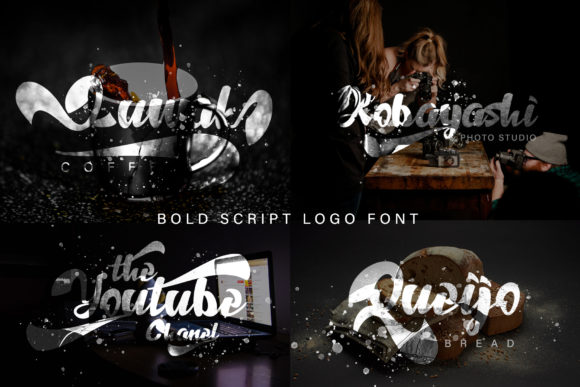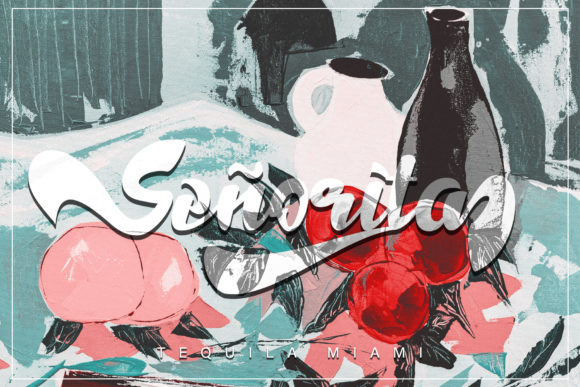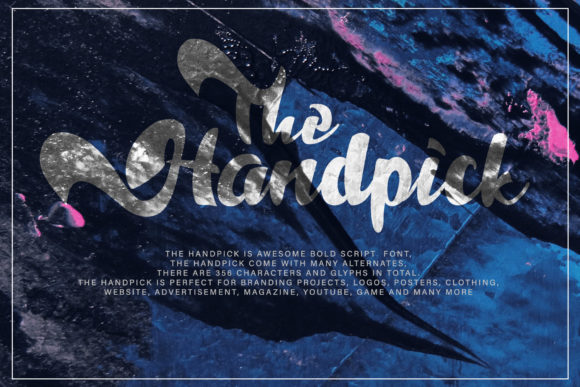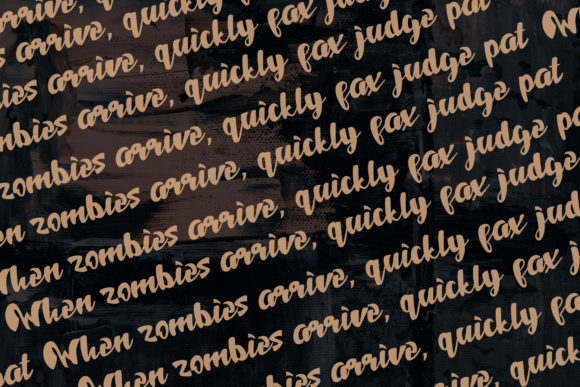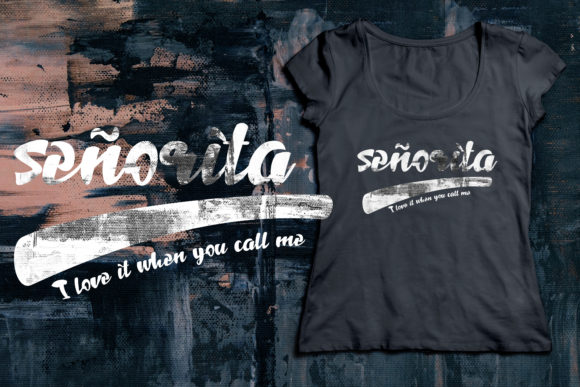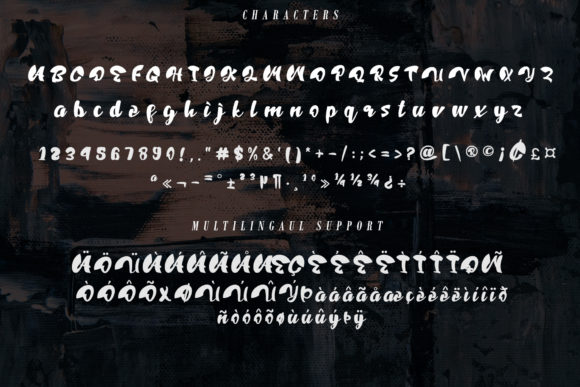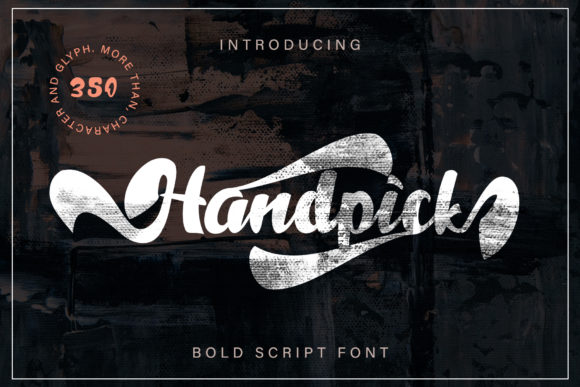
Introducing Handpick Font: The Ultimate Bold Script for Creative Projects
Are you tired of using the same old fonts for your creative projects? Look no further than Handpick Font, an awesomely bold script font that’s perfect for a variety of applications. In this article, we’ll dive into the features and benefits of Handpick Font, and explore how it can elevate your designs to the next level.
What is Handpick Font?
Handpick Font is a bold script font that’s designed to make a statement. With its unique and elegant lettering style, it’s perfect for creating eye-catching headlines, titles, and quotes. The font is carefully crafted to provide a distinctive look that’s both modern and sophisticated.
Key Features of Handpick Font
- Bold and Elegant: Handpick Font is a bold script font that’s designed to grab attention. Its elegant lettering style makes it perfect for creating sophisticated designs.
- Unique Lettering Style: The font features a unique lettering style that’s both modern and stylish. Each letter is carefully crafted to provide a distinctive look that’s sure to stand out.
- High-Quality Design: Handpick Font is designed with high-quality graphics, ensuring that it looks great in any size or resolution.
- Easy to Read: Despite its bold style, Handpick Font is easy to read, making it perfect for use in a variety of applications, from headlines to body text.
Uses for Handpick Font
Handpick Font is a versatile font that can be used in a variety of creative projects. Here are some ideas to get you started:
- Branding and Logo Design: Use Handpick Font to create a bold and memorable logo for your brand.
- Social Media Graphics: Create eye-catching social media graphics, such as Facebook posts, Instagram stories, and Twitter headers, using Handpick Font.
- Flyers and Brochures: Add a touch of elegance to your flyers and brochures with Handpick Font.
- Invitations and Cards: Use Handpick Font to create beautiful invitations and cards for special occasions.
- Web Design: Add a bold and stylish touch to your website with Handpick Font.
Benefits of Using Handpick Font
There are many benefits to using Handpick Font in your creative projects. Here are a few:
- Stand Out from the Crowd: With its unique and bold style, Handpick Font is sure to make your designs stand out from the crowd.
- Professional Look: Handpick Font gives your designs a professional look that’s perfect for businesses, artists, and designers.
- Time-Saving: With Handpick Font, you can create professional-looking designs in no time, saving you time and effort.
Tips for Using Handpick Font
Here are some tips for using Handpick Font in your creative projects:
- Use it Sparingly: While Handpick Font is bold and eye-catching, it’s best to use it sparingly to avoid overwhelming your design.
- Pair it with Other Fonts: Experiment with pairing Handpick Font with other fonts to create a unique and interesting look.
- Adjust the Size and Color: Adjust the size and color of Handpick Font to suit your design needs.
In conclusion, Handpick Font is an awesomely bold script font that’s perfect for a variety of creative projects. With its unique and elegant lettering style, it’s sure to make your designs stand out from the crowd. Whether you’re a designer, artist, or business owner, Handpick Font is a great choice for adding a touch of sophistication and style to your work.